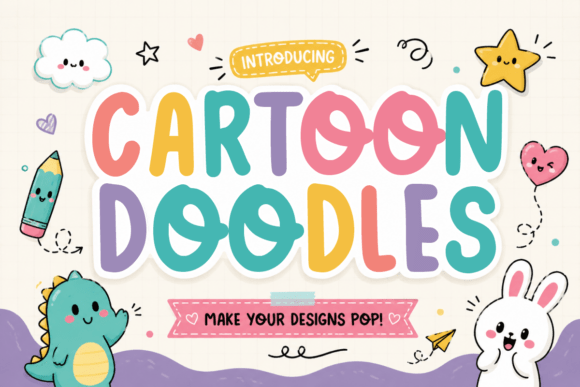
Cartoon Doodles: A Playful Handwritten Typeface for Branding Projects
I remember opening my brand board last Tuesday with a blank expression and a fresh coffee. A new client, a tiny handmade soap workshop slowly expanding into a proper skincare line, had asked for a visual identity that felt sunny, approachable, and delightfully imperfect. The brief said “friendly, not childish; charming, not loud.” I had already shortlisted three sans serif fonts for the body copy, but the logotype itself was missing something. That’s when I dragged Cartoon Doodles onto my first logo draft almost on a whim—and suddenly the blank board started breathing.
Cartoon Doodles is a wonderfully bold, bouncy, and rounded handwritten display font that somehow balances carefree energy with real typographic presence. It lands like a warm splash of ink, and while its name suggests a purely illustrative feel, using it in a real branding project taught me it has much more range than a simple doodle ever could. This is a premium font built for designers who want to inject immediate personality into logos, packaging, and short-form display text without sacrificing readability.
First Impressions on a Real Brand Board
Whenever I test a new creative font, I drag it directly into a working context, not a type tester. I typed the soap workshop’s name in Cartoon Doodles at 60pt and pulled up a simple kraft-paper packaging mockup. The rounded letterforms immediately softened the whole composition. The strokes are uneven and slightly bubbly, the baseline hops just enough to feel handwritten but never sloppy. It didn’t feel like a gimmick; it felt like the visual equivalent of smiling at a shopkeeper you’ve known for years.
I then scaled it down to business card size. Surprisingly, the legibility held up nicely for a display font. At smaller sizes on a secondary line, the bounce became a tiny bit distracting, which is normal for bouncy handwritten typefaces. Right there, I knew its sweet spot was as a hero typeface: a primary logo font, a headline on packaging, or the star of social media graphics.
Where a Bouncy Handwritten Display Font Thrives
Over the next few days, I pushed Cartoon Doodles into every brand asset the skincare workshop might need. It performed beautifully as a headline font on Instagram posts, where the playful character added warmth to otherwise minimalist product shots. For a pop-up market stall sign, I tested it at poster size—printed on matte board, those rounded letterforms looked even more approachable from a few feet away. The irregular rhythm felt organic rather than clumsy, and that human touch is often exactly what small creative studios or local boutiques need to stand out against slick corporate chains.
Logos and Primary Marks
For the soap workshop’s main logo, I paired Cartoon Doodles with a clean, geometric sans serif below the wordmark. The bouncy handwritten logotype sat on top like a hand-signed label, while the supporting text kept contact details crisp. A quick adjustment to tracking on the display portion of the logo, and it looked intentional—the slightly rounded terminals mirrored the gentle curves in the illustration of a lavender sprig we added alongside. If you’ve ever worked on branding for a boutique, a café, or any product-based business that relies on emotional connection, you’ll know how hard it is to find a typeface that feels handcrafted without looking messy. This one hits that balance.
Packaging and Product Labels
I then moved to the fun part: product labels. Cartoon Doodles on a rectangular honey soap label felt unstoppable. The bold weight meant I could use a soft pastel background and still maintain contrast for the product name. I kept the ingredient list in a light sans serif, letting the display font own the top third of the label. Because the font is consciously rounded, the overall effect whispered “artisan” rather than “factory.” The client saw digital mockups and immediately felt the brand identity was consistent, warm, and recognisable—exactly the reaction you hope for.
Readability, Visual Hierarchy, and Brand Perception
One thing I always monitor when using a playful display font is how it affects visual hierarchy. Cartoon Doodles naturally pulls attention to itself. On a website header or flyer, it will dominate. That makes it an excellent tool for directing the viewer’s eye to the most important piece of information first—say, a sale announcement or a new collection name—while allowing clean body copy to do the heavy lifting. I found that setting it in all lowercase preserved the bouncy rhythm better than all caps, though mixed case worked beautifully for proper names and product titles.
From a brand perception angle, this handwritten font signals approachability, creativity, and a gentle optimism. It’s the kind of typeface that helps a small business look vivid and personal without slipping into juvenile territory. For the skincare line, that meant customers might feel they’re buying from a real person who carefully pours each batch. That emotional layer matters enormously in competitive niches.
Pairing Cartoon Doodles with Other Typefaces
In this project, I found that Cartoon Doodles behaves remarkably well alongside modern typography tastes. The rounded, bouncy style creates a lovely contrast with structured type. Here are a few pairings I explored in the mockup phase:
- Clean sans serif: A neutral grotesque or geometric sans keeps body text readable and lets the display font shine. I used this for package backs, tags, and web body copy.
If your current project sits at the intersection of warmth, creativity, and a need for near-instant brand recognition, a font like this deserves a spot in your shortlist. Whether it’s for a small café, a boutique skincare label, a handmade shop, or your own creative studio, Cartoon Doodles brings the kind of personality that industrial typefaces simply cannot replicate. Play with it on packaging mockups, on an Instagram reel title, on a simple business card, and you might find your design smiling back at you.